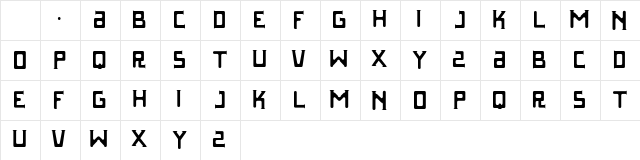
Parasight Regular
Design Context for Parasight Typeface
Parasight takes a measured approach to typography — its balanced proportions and neutral character make it a reliable workhorse for both digital and print work.